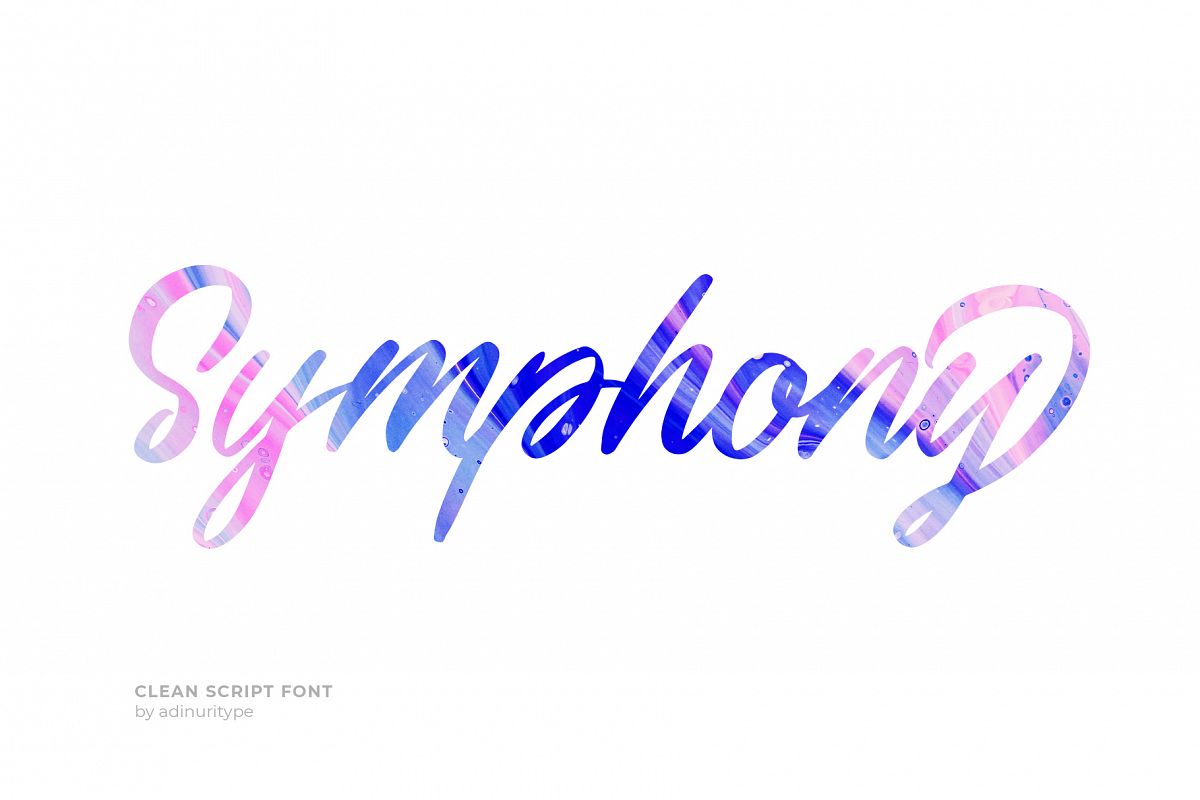
Symphony Script Font
Symphony is a hand written typeface with a Clean Elegant style. Created on iPad Procreate and tweaked on Illustration, it’s looks best for quotes, Brand and identity, Poster Headline, Body text and etc.